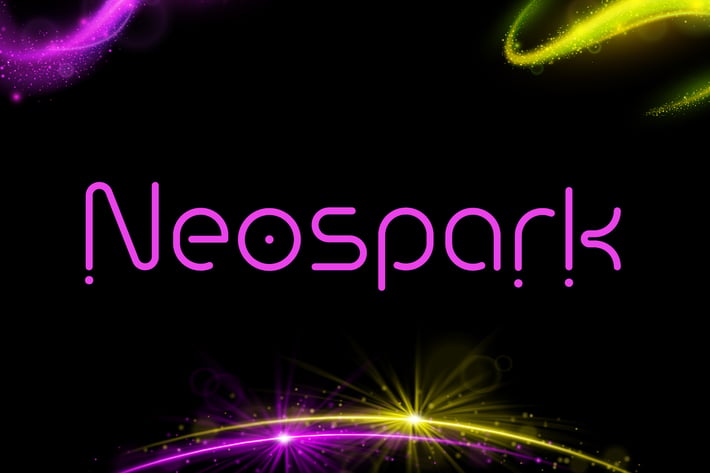
Neospark Font
Neospark is a vibrant, modern, and futuristic font that combines sleek rounded lines with dynamic neon-inspired colors. Perfect for creating eye-catching designs, this typeface is ideal for branding, posters, digital artwork, tech projects, event promotions, and more. Neospark offers a bold and playful aesthetic that stands out, making it a great choice for designers seeking to add a trendy and energetic touch to their work. Compatible with all major design software, Neospark is your go-to font for creativity and innovation. Download now and spark your next design project!
Unique letterforms
Neospark is a vibrant, modern, and futuristic font that combines sleek rounded lines with dynamic neon-inspired colors. Perfect for creating eye-catching designs, this typeface is ideal for branding, posters, digital artwork, tech projects, event promotions, and more. Neospark offers a bold and playful aesthetic that stands out, making it a great choice for designers seeking to add a trendy and energetic touch to their work. Compatible with all major design software, Neospark is your go-to font for creativity and innovation. Download now and spark your next design project!
Unique letterforms